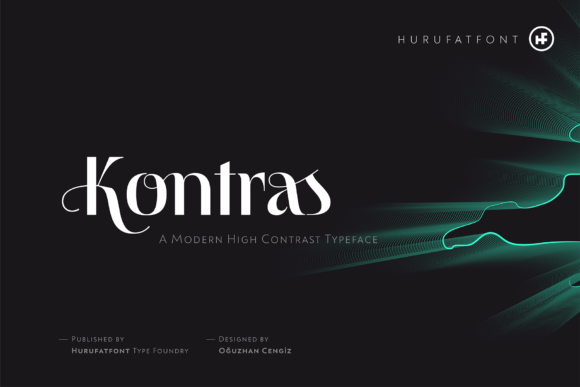
Indulge in the captivating charm of Kontras, a display font that exudes a symphony of cool, distinct, and trendy aesthetics. This extraordinary typeface is destined to leave an unforgettable mark on your creative endeavors.
Picture this: the bold strokes of Kontras dancing across your posters, capturing attention with an irresistible allure. Each letterform, meticulously crafted by the visionary designers at Hurufatfont, carries the potential to ignite your imagination and elevate your designs to new heights.
Whether you're embarking on a whimsical craft project, transforming your digital designs with flair, captivating your audience with impactful presentations, or crafting heartfelt greeting cards, Kontras possesses the versatility to flawlessly complement your every creative pursuit.
This remarkable font is not merely another typeface in your collection; it has the potential to become your trusty companion, a go-to font for every occasion. Embrace the captivating spirit of Kontras and witness the transformative power it wields over your artistic creations.